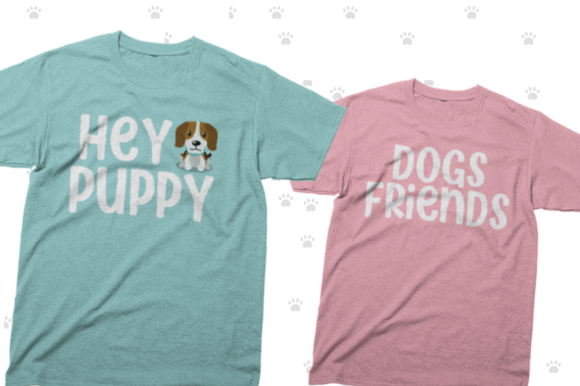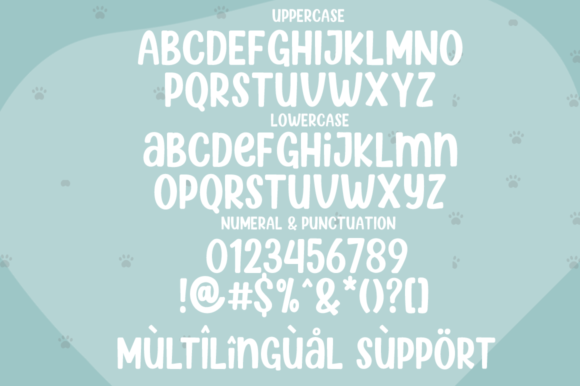
Hello Puppy is a quirky display font, featuring the perfect amount of trendiness. Whether you’re using it for crafting, digital designing, presentations or greeting cards making, it’s perfect!